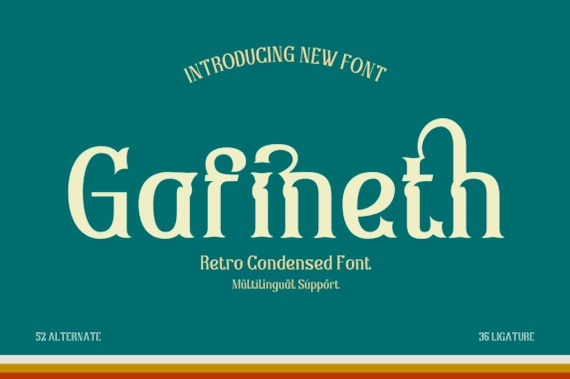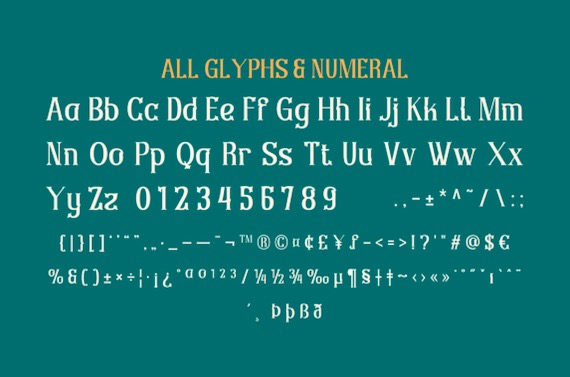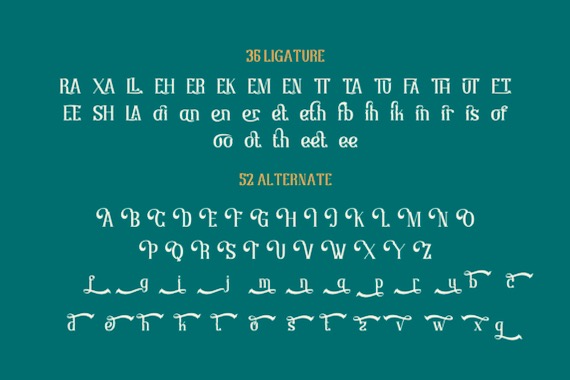
Gafineth Font
Introducing a new design product from Twinletter, Gafineth. It is a retro and classic display font. Elevate your designs with this sophisticated and elegant font that seamlessly blends the best of both classic and modern typography. Whether you’re designing for print or digital media, this font is a versatile choice for a wide range of projects. Remember that the font is PUA encoded, meaning you can access all delightful glyphs and swashes effortlessly.
Designer, Publisher: Twinletter